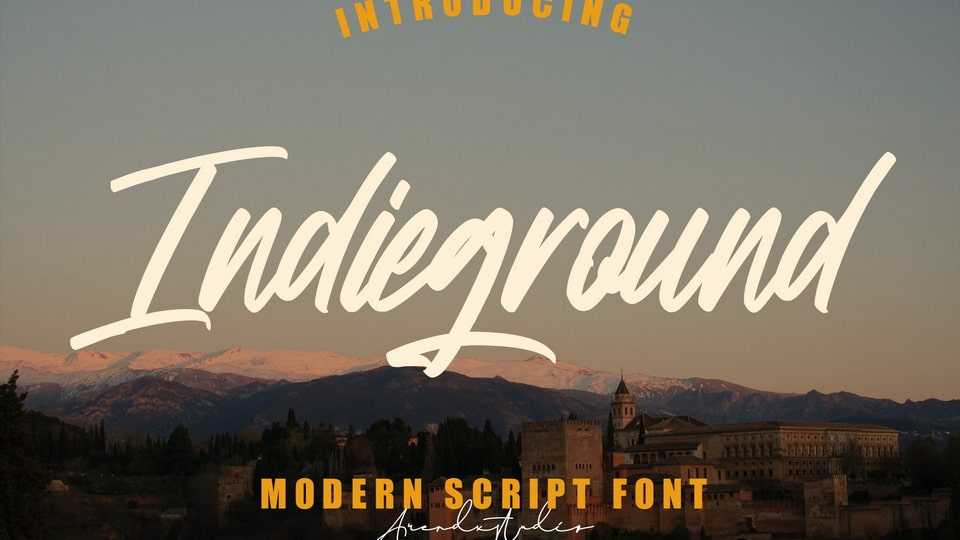
Download Indieground font, a paint brushed script typeface with distinctive handwritten characters. Trendy and stylish, Indieground font will elevate each of your creations.
Designer: Arendx Studio